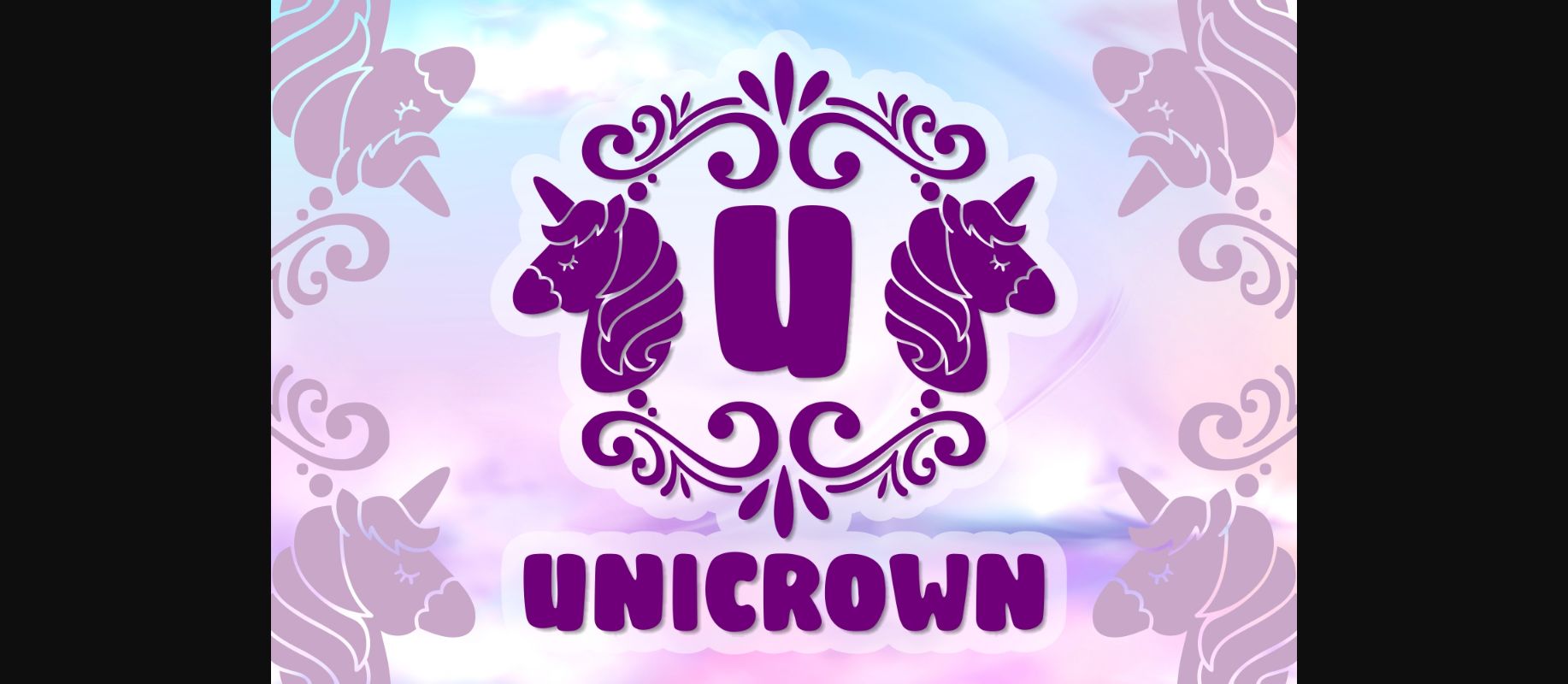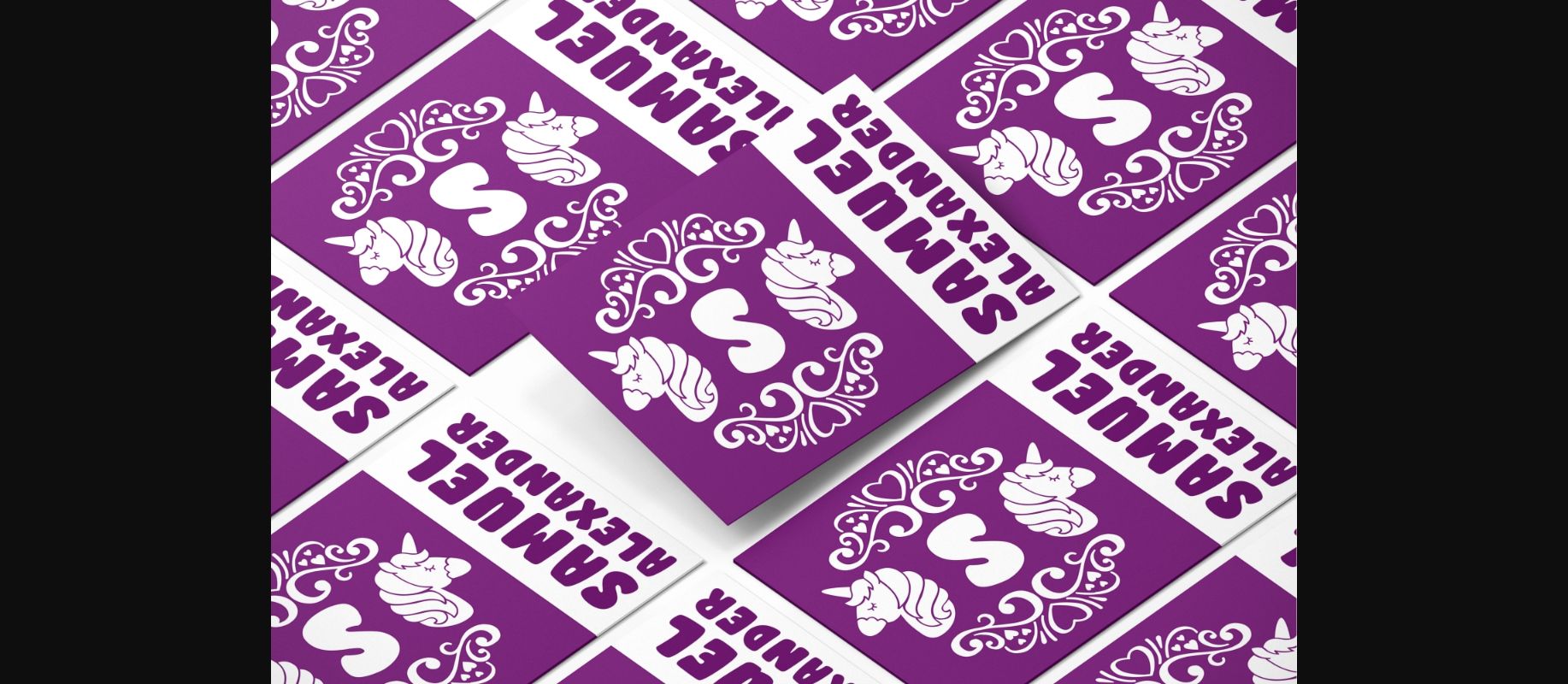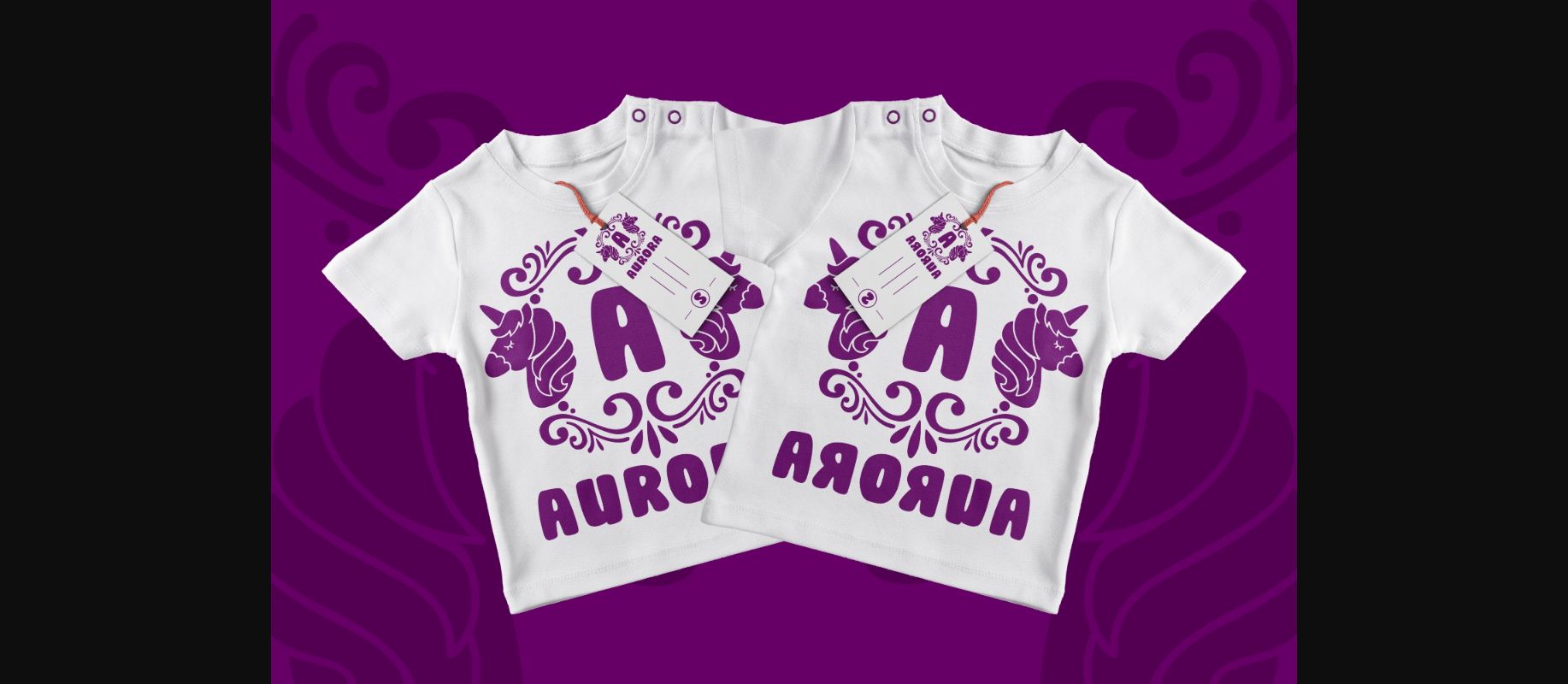
Unicrown Font
About Unicrown Font
Unicrown is a superb unicorn themed monogram decorative font. Get creative with its childlike playfulness, and use it to brighten up any kids and school project!